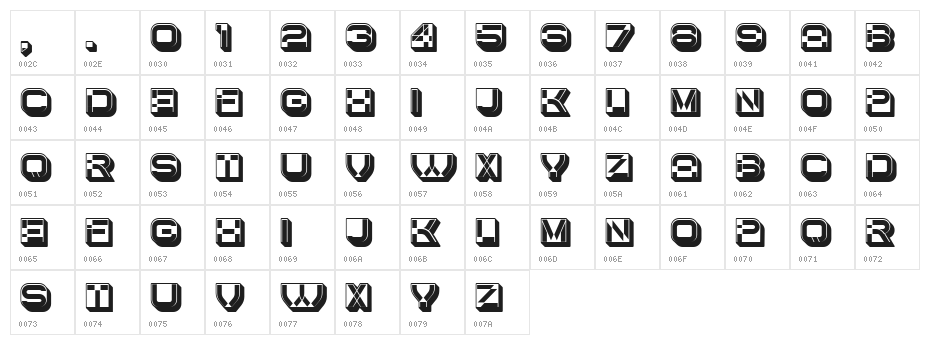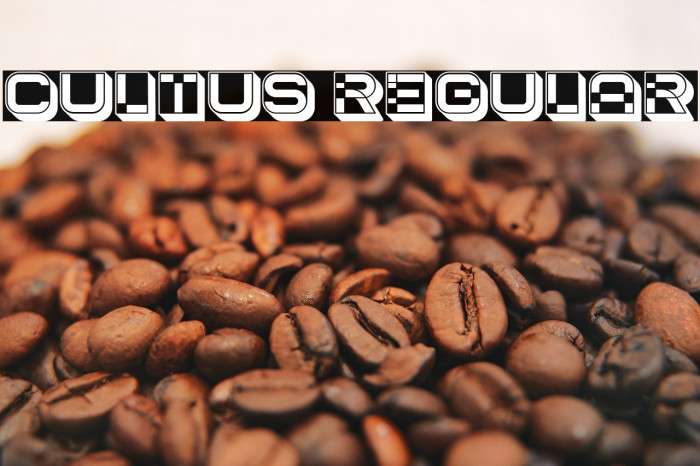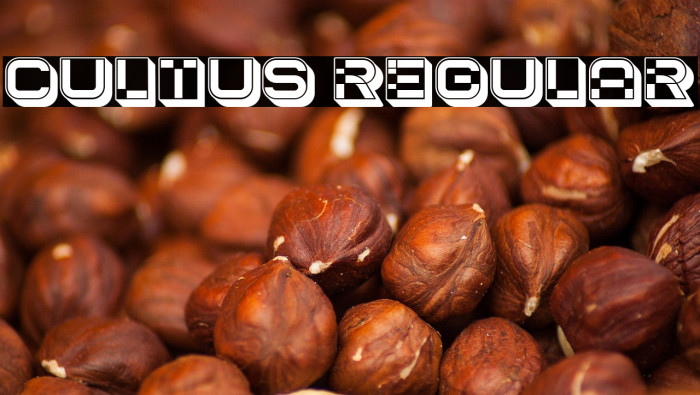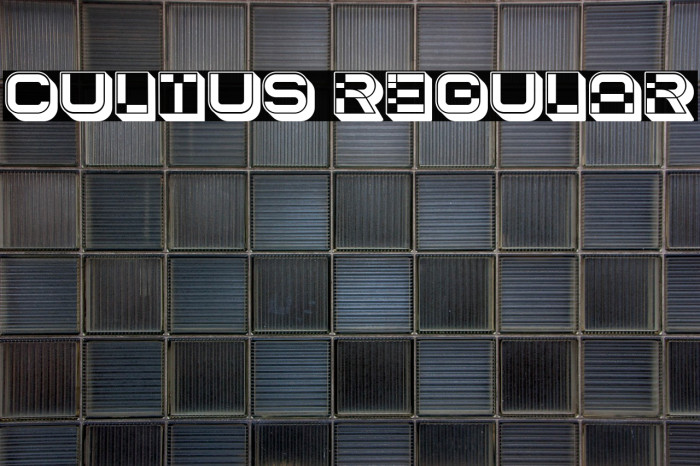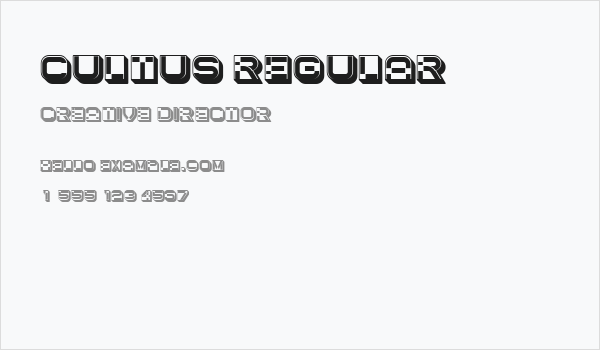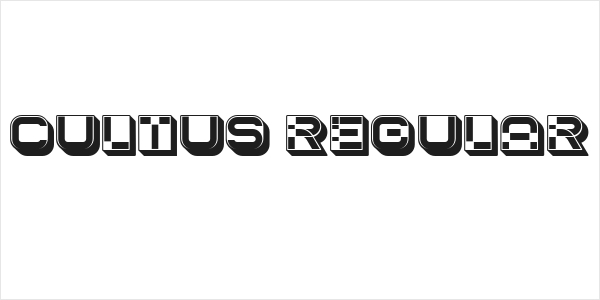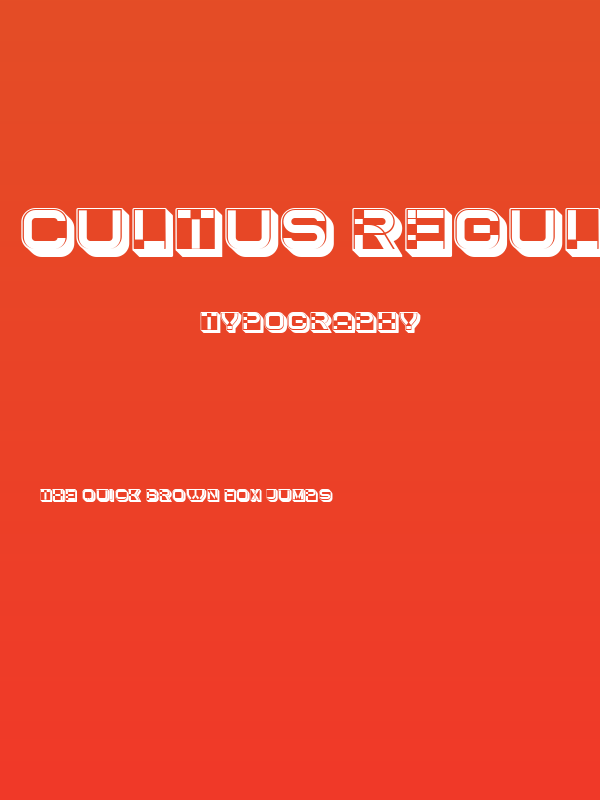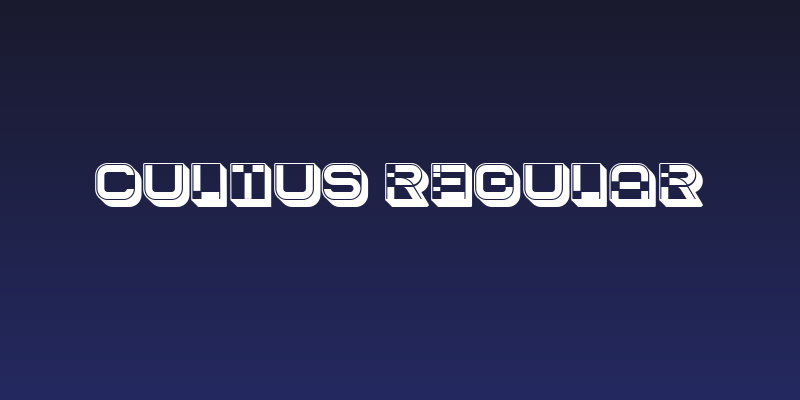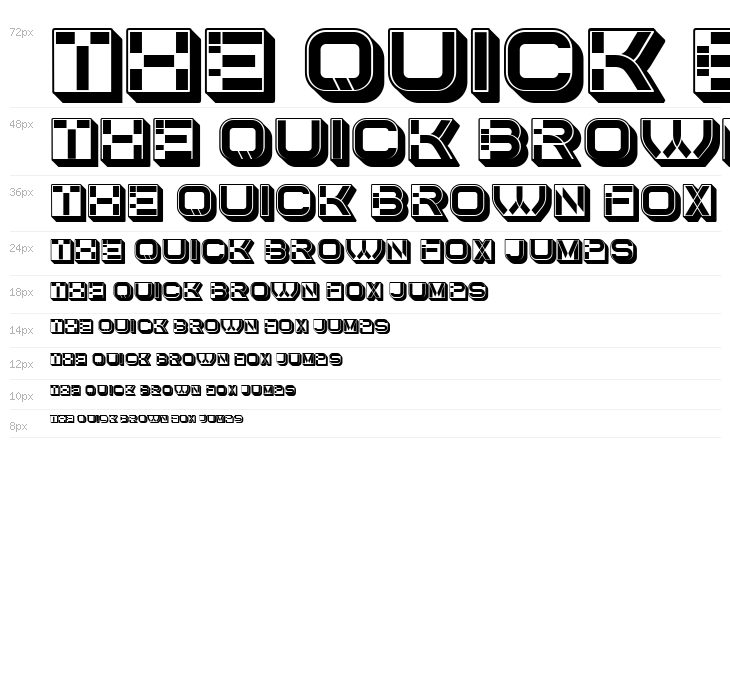
Cultus Regular Font
Cultus Regular Description
This font features a bold, geometric design with a three-dimensional effect that gives it a striking and modern appearance. The characters are constructed with thick lines and sharp angles, creating a sense of depth and dimension. The use of negative space within the letters adds to its unique style, making it stand out in any design. The font's structure is consistent, with each character maintaining a uniform width and height, contributing to its cohesive look. Its boldness and distinctive style make it ideal for attention-grabbing headlines and creative projects.
| Proposed Projects | Ideal for posters, logos, branding, and any project requiring a bold, eye-catching typeface. |